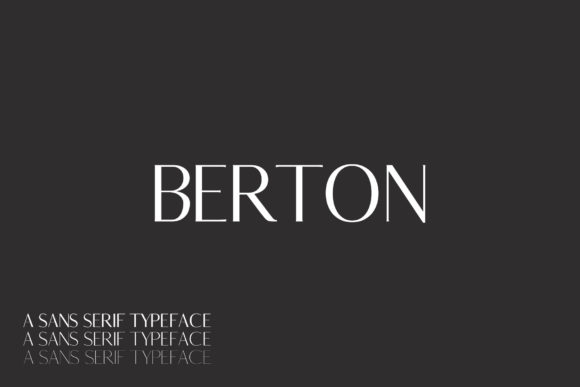
The Berton Family Font: A Timeless Choice for Creative Projects
I’ll never forget the time I was working on a branding project for a luxury client, and I was struggling to find the perfect font. The client wanted something classy, timeless, and versatile, but everything I tried seemed to fall flat. That’s when I stumbled upon the Berton Family Font, and it instantly became the perfect fit. In this article, I’ll share my experience with this amazing font, and explore its features, uses, and alternatives.
An Honest Review of Berton Family Font
The Berton Family Font is a sans serif font family that exudes elegance and sophistication. Here are some things I love about it:
• ✨ Minimalistic and neat characters that are easy to read
• ✅ Highly versatile and suitable for a wide range of projects
• 💡 Great for headlines, magazines, small text, stationery, business cards, and more
• 👍 Excellent for projects that need to stand out
While Berton Family Font is an excellent choice, it’s not perfect. Here are some small quirks to keep in mind:
• 🤔 Limited language support (although it’s suitable for most English-language projects)
• ⚠️ Some users may find the font too minimalist or plain for certain projects
The Story Behind Berton Family Font
Berton Family Font was designed with the goal of creating a timeless and versatile font that could be used for a wide range of projects. The designer drew inspiration from classic sans serif fonts, while adding a modern twist to create a unique and elegant feel.
What is the Berton Family Font? The Berton Family Font is a classy and timeless sans serif font family, suitable for a wide range of creative projects.
Is Berton Family Font suitable for body text? Yes, Berton Family Font is suitable for body text, although it’s particularly effective for headlines and titles.
Is Berton Family Font available in different weights? Yes, Berton Family Font comes in multiple weights, allowing you to create visual hierarchy and add depth to your designs.